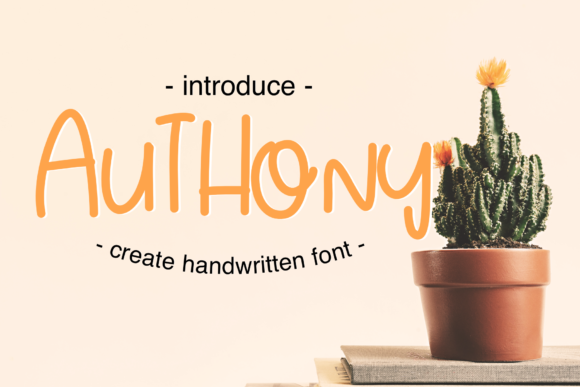
The Joy of Authony Font: A Designer’s New Best Friend
I’ll never forget the time I was working on a project for a children’s party invitation. I had the design concept all sorted out, but I was stuck on finding the perfect font. The client wanted something fun, playful, and engaging. I scoured through font libraries, but nothing seemed quite right. That was until I stumbled upon Authony Font. 💫
Authony is a cute and quirky handwritten font that instantly added a joyful touch to my design. Its unique charm and character made the invitation stand out, and the client loved it! From that moment on, I was hooked on Authony Font. In this article, I’ll share my experience with this beautiful font, its features, and how to make the most of it in your designs.
An Honest Review of Authony Font
What I Love About Authony Font ✨
- Unique and quirky handwritten style that adds a touch of personality to any design 🎨
- Perfect for projects that require a playful and joyful tone, such as children’s party invitations, greeting cards, and social media graphics 🎉
- Easy to read and understand, even at smaller font sizes 📚
- Supports multiple languages and OpenType features, making it versatile for various design projects 🌎
- Extensive character set, including glyphs and stylistic alternates, for added creative flexibility 🤩
While Authony Font is an excellent choice for many design projects, there are a few things to keep in mind:
- Some characters may not be suitable for body text or long-form content, as they can be quite ornate and attention-grabbing ⚠️
- Limited use of uppercase letters, which may not be ideal for designs that require a strong emphasis on headings or titles 📝
The Story Behind Authony Font
Authony Font was created by a talented type designer who wanted to create a font that would bring joy and personality to designs. Inspired by the beauty of handwritten letters, the designer crafted Authony Font to be a unique and quirky font that would stand out in any design project. With its extensive character set and OpenType features, Authony Font has become a favorite among designers and crafters alike.
Q: What is Authony Font best used for?
A: Authony Font is perfect for designs that require a playful and joyful tone, such as children’s party invitations, greeting cards, and social media graphics.
Q: Is Authony Font available in multiple languages?
A: Yes, Authony Font supports multiple languages, making it a versatile font for various design projects.
Q: Can I use Authony Font in my craft projects?
A: Absolutely! Authony Font is perfect for craft projects, such as scrapbooking, journaling, and card making.